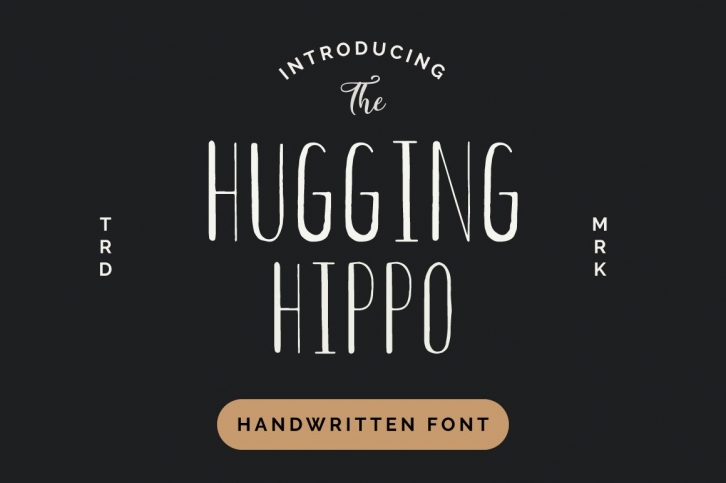
Hugging Hippo was the place where I met my MR RIGHT. From there, I thought I want to a make font to remember this place forever. This all-caps font has a delightfully hand-written feel. OTF and TTF are included.
HUGGING HIPPO